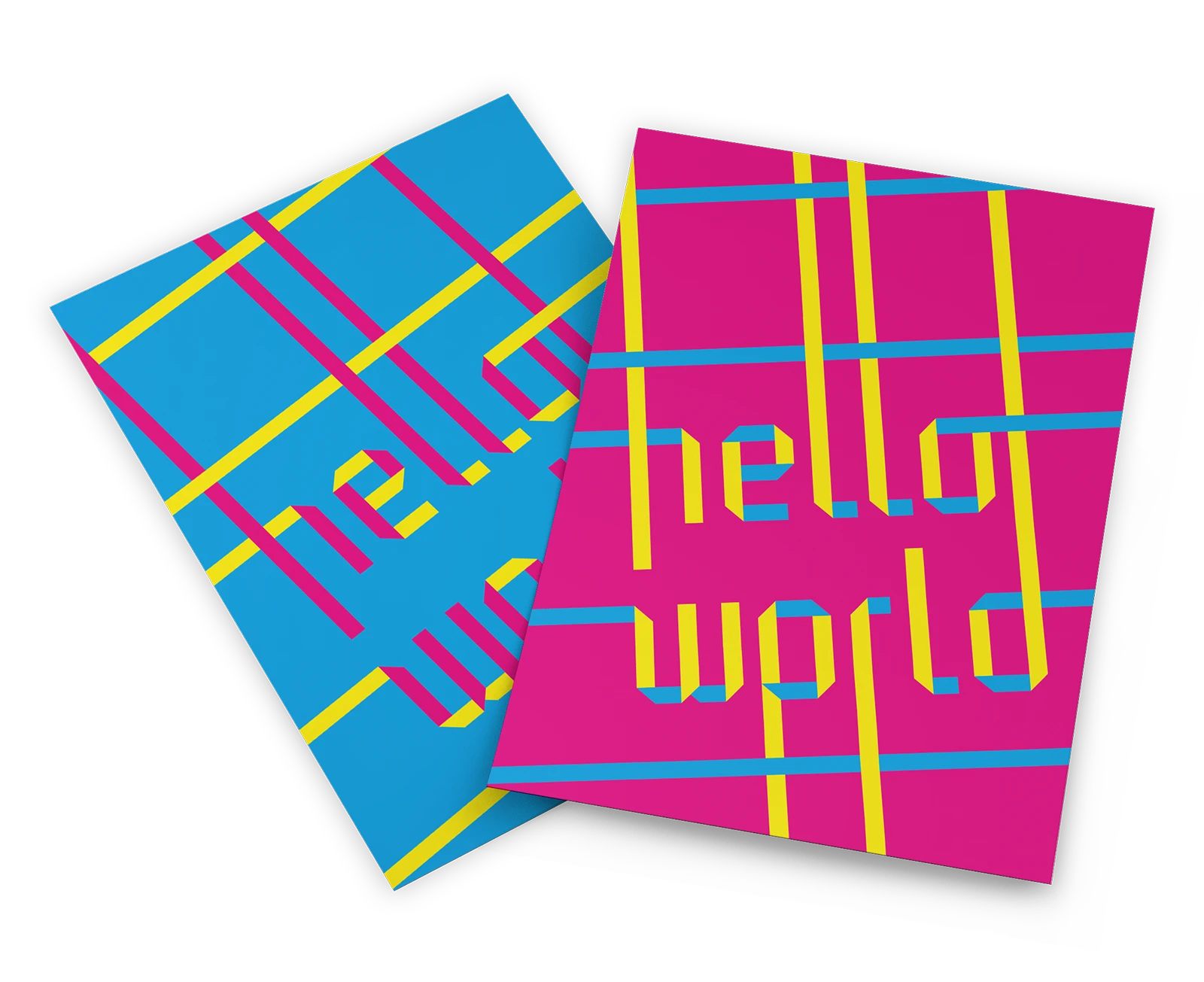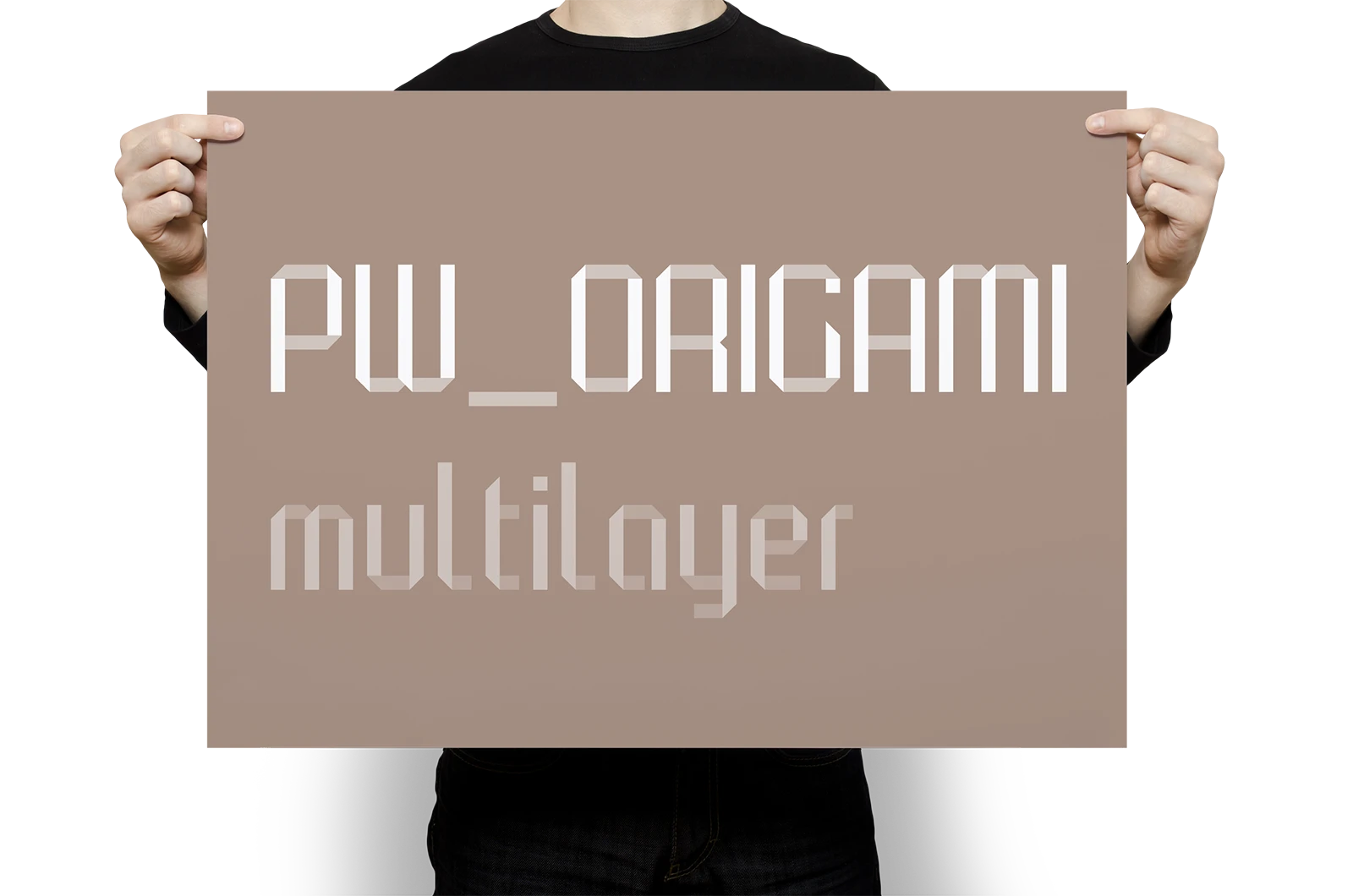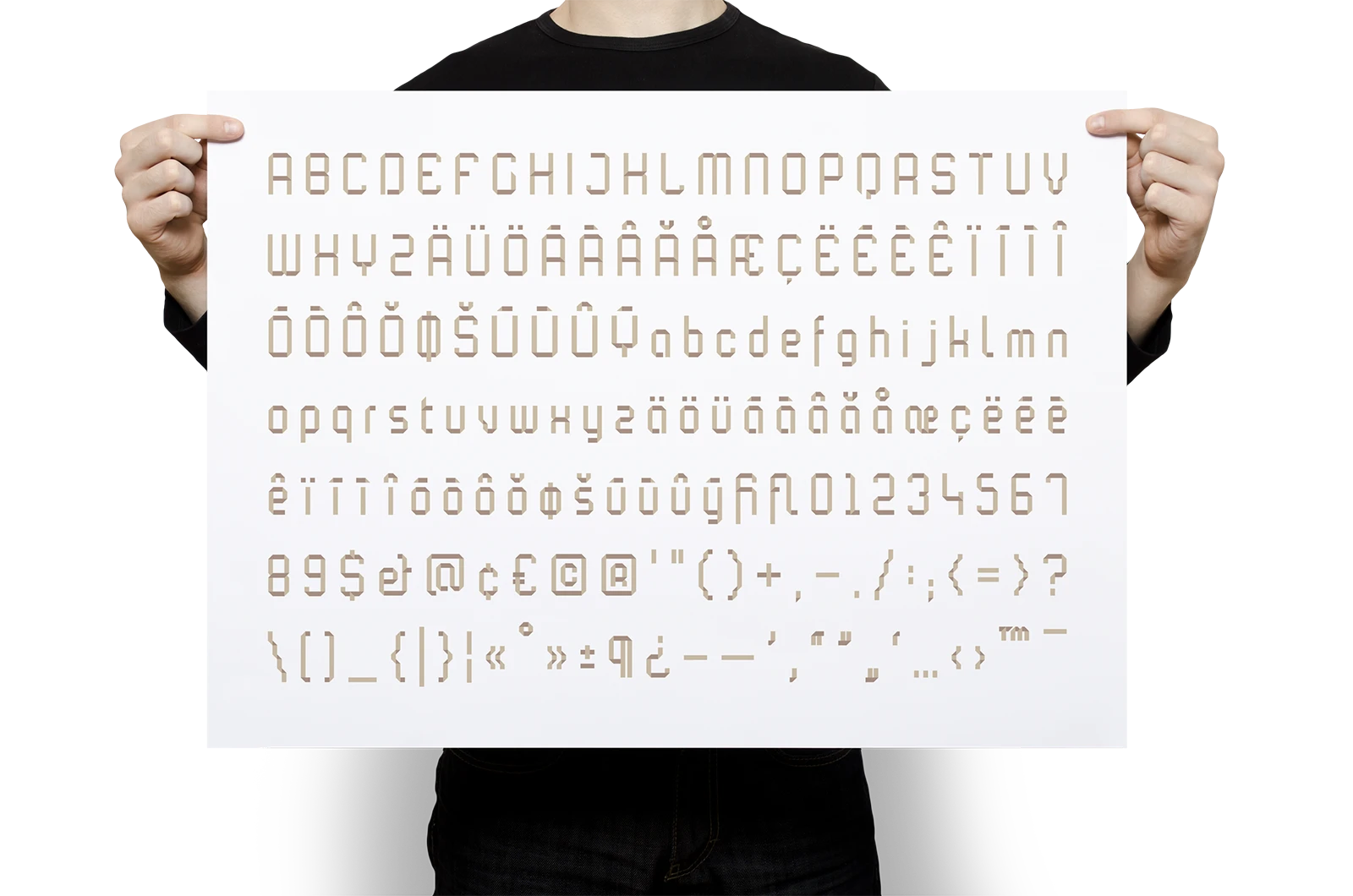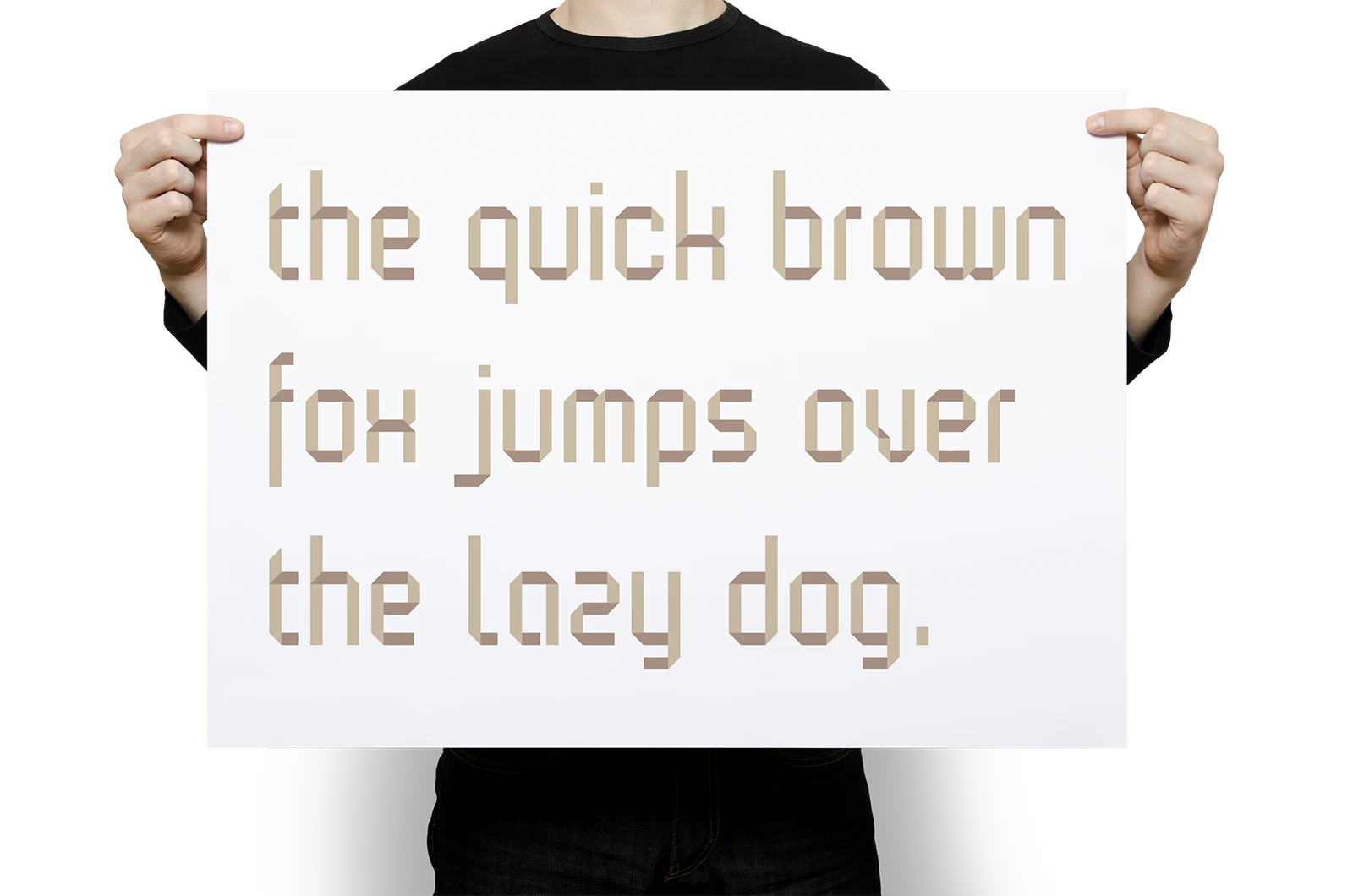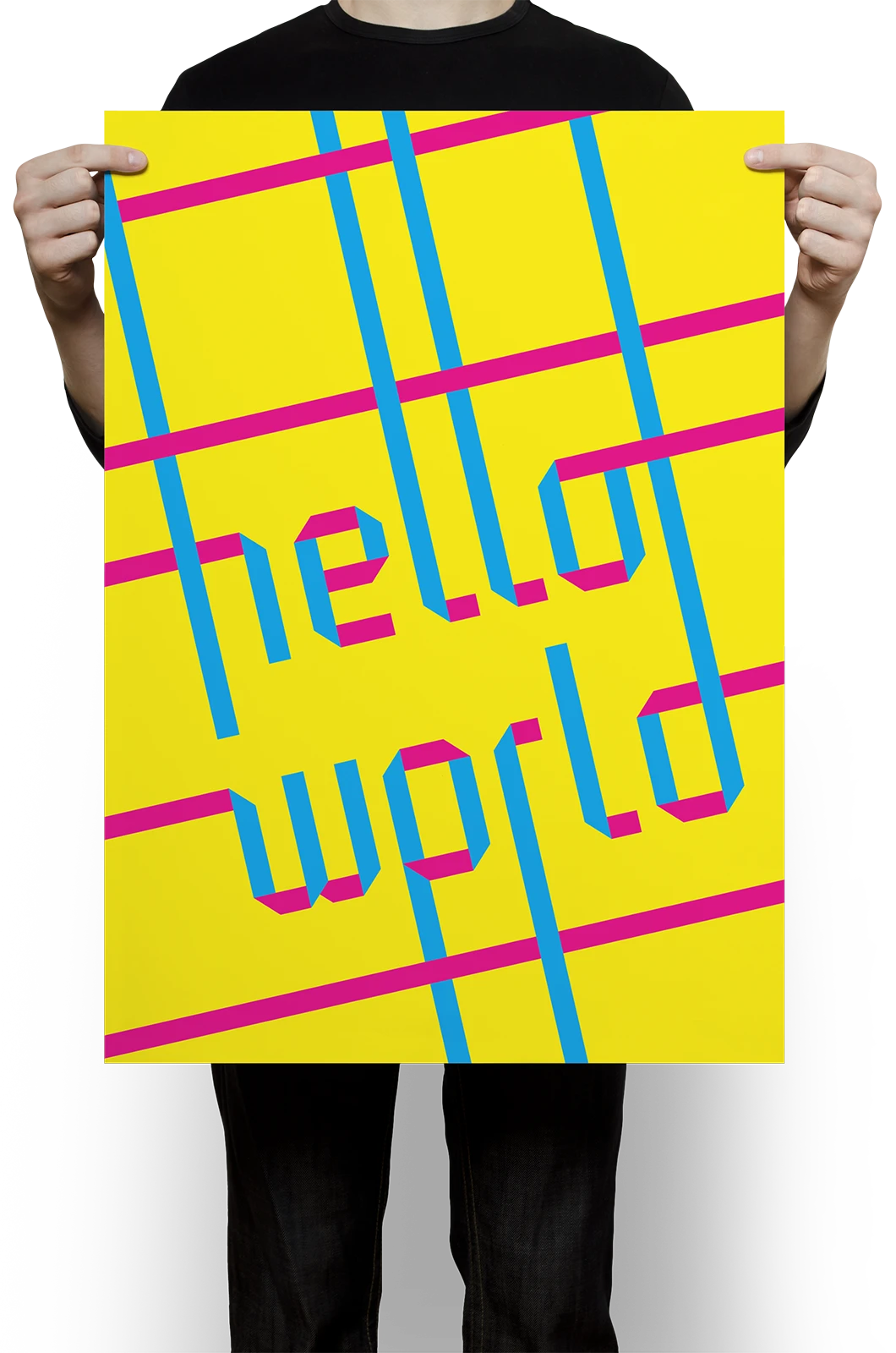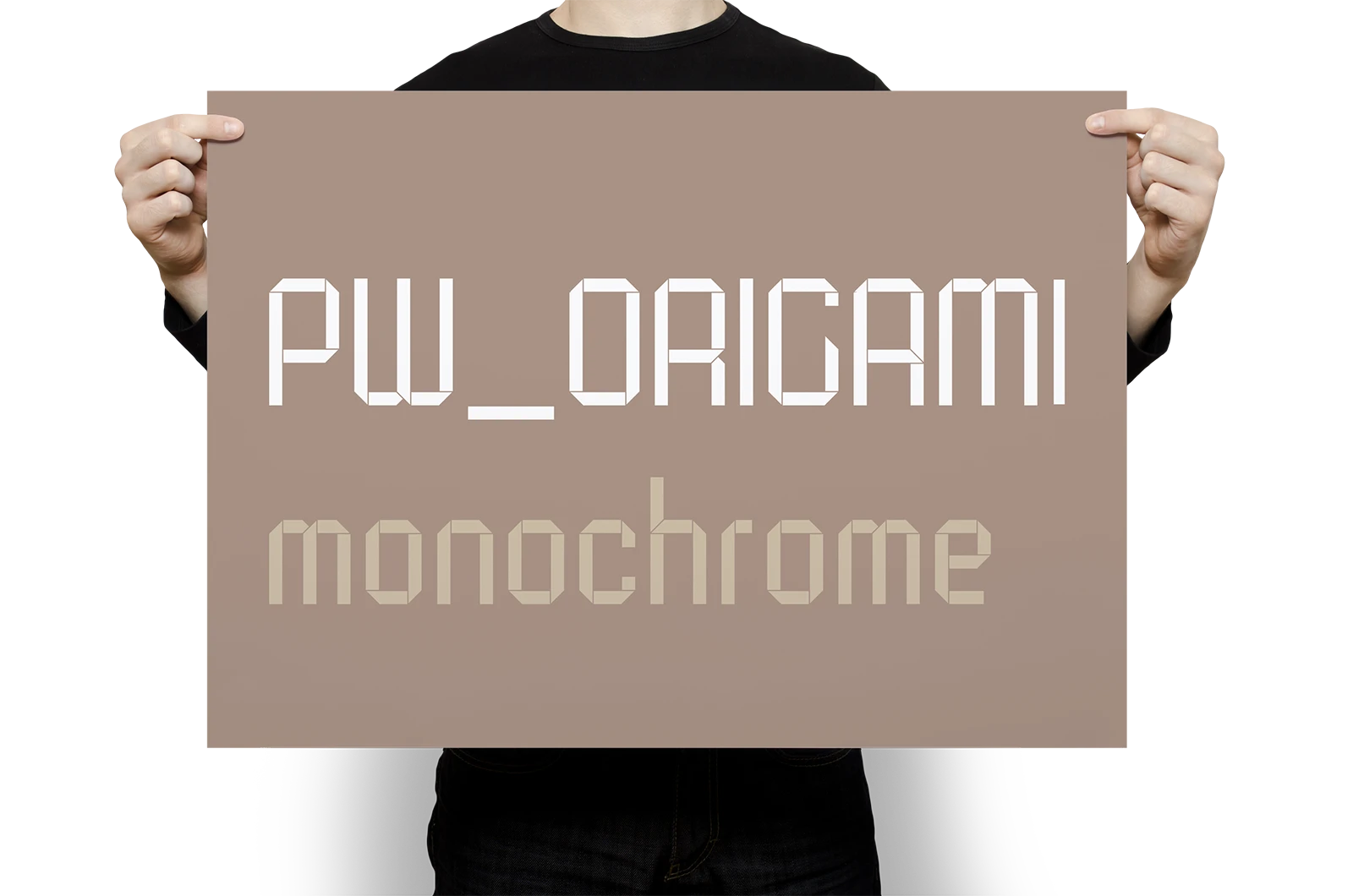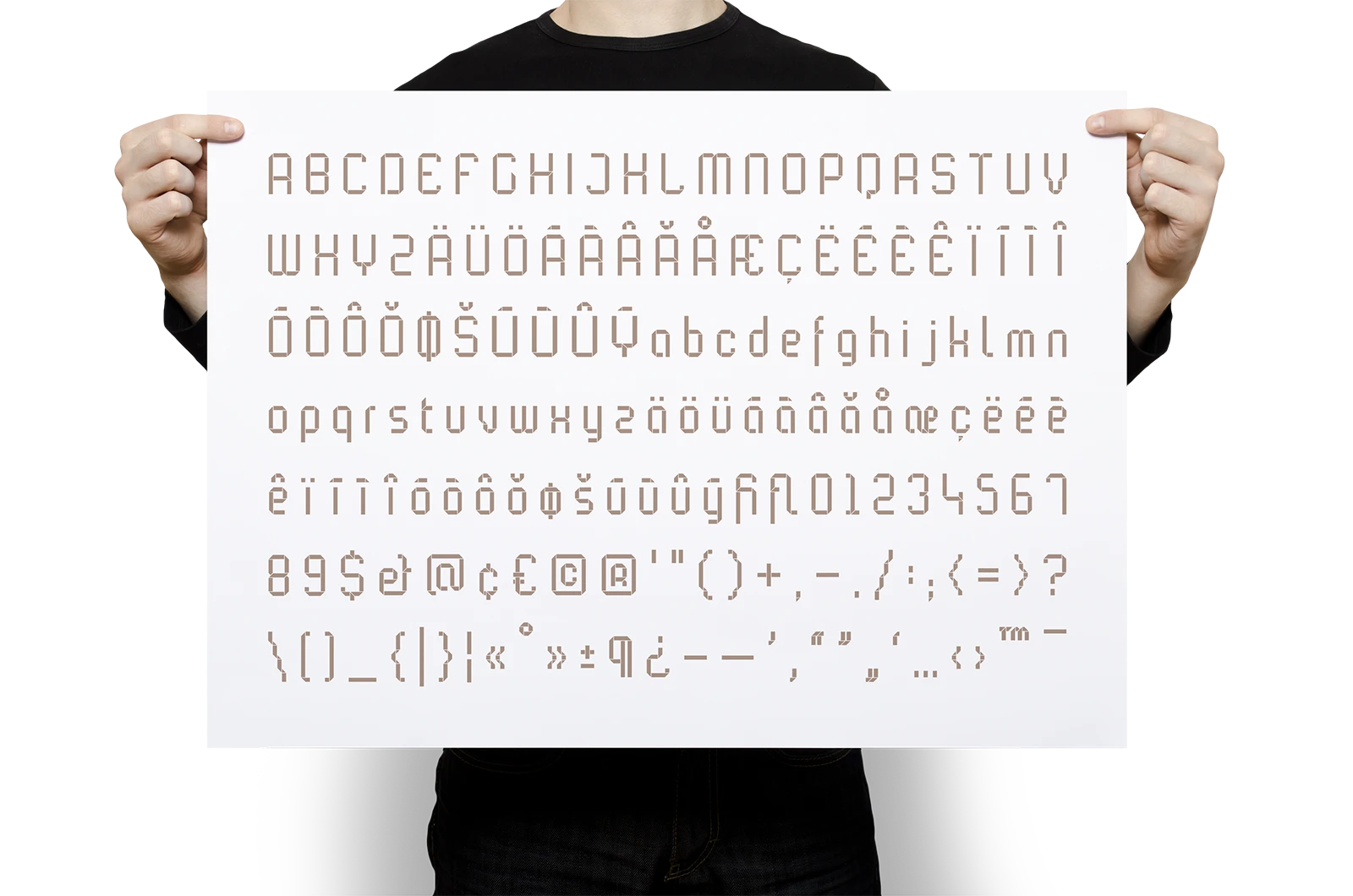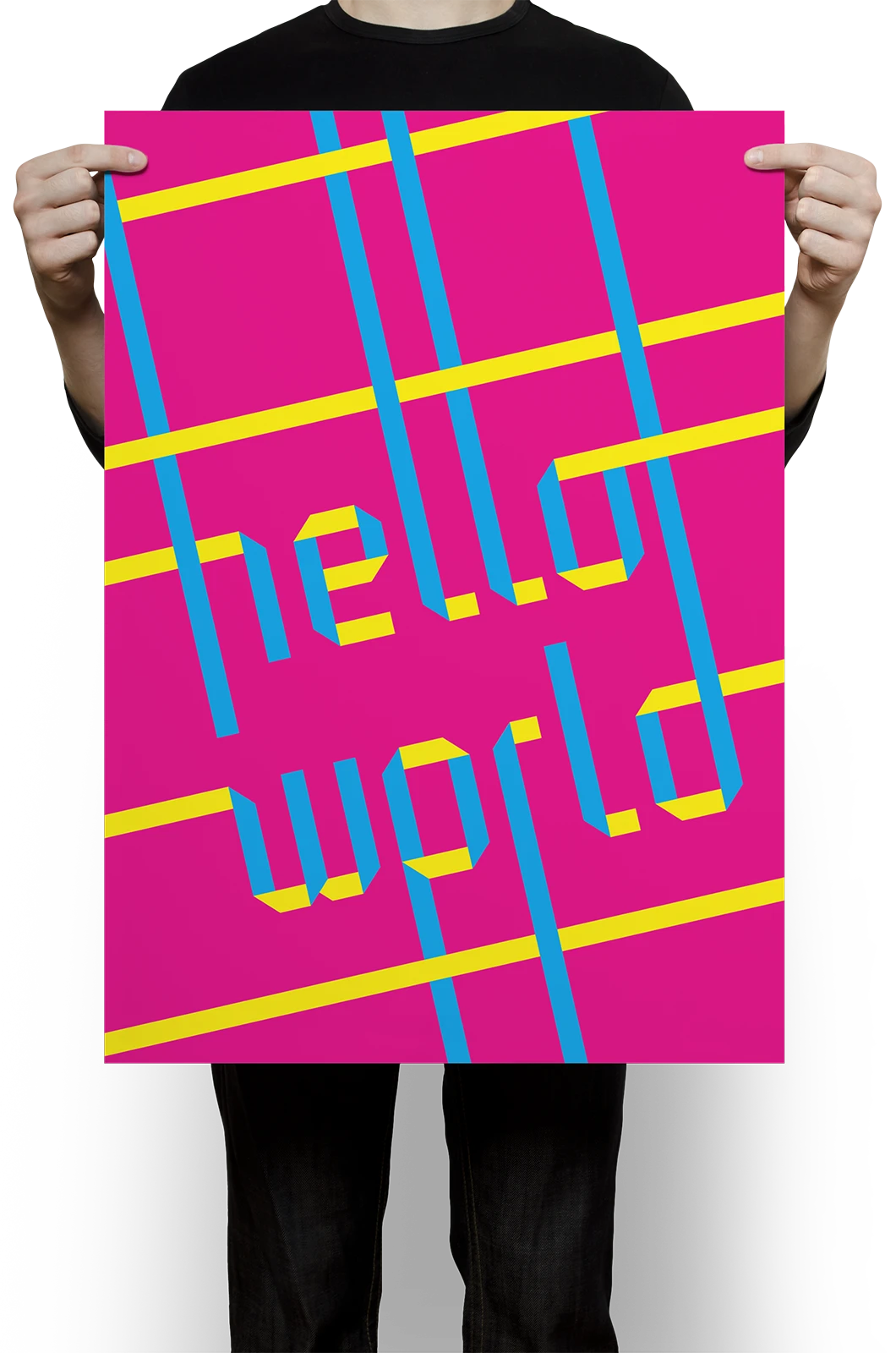
A project on the topic of typeface design in which a minimalist headline font was created in two weights. The design was inspired by folded paper and was developed as part of a personal project.
Ein Projekt zum Thema Schriftgestaltung bei dem eine minimalistische Headline-Schrift in zwei Schnitten gestaltet wurde. Die Gestaltung wurde inspiriert von gefaltetem Papier und entstand im Rahmen eines freien Projektes.